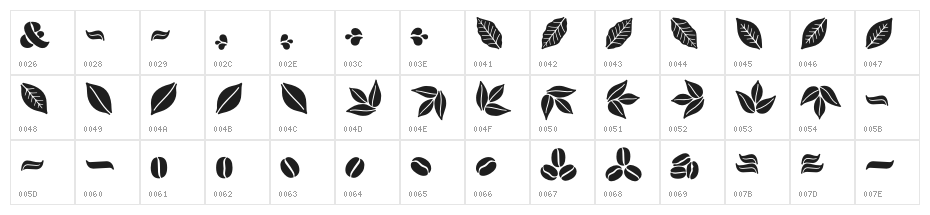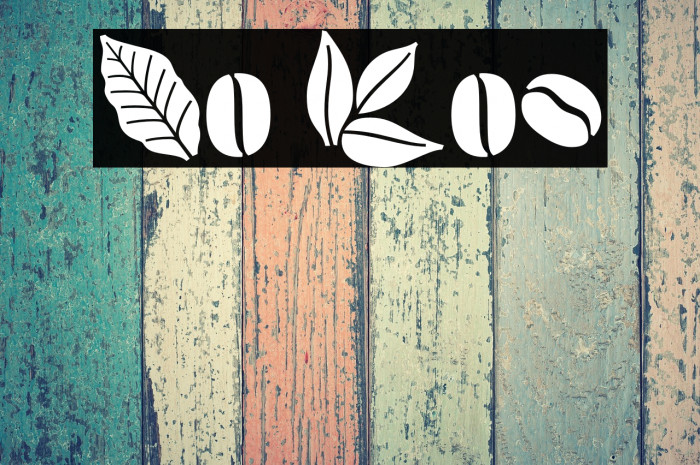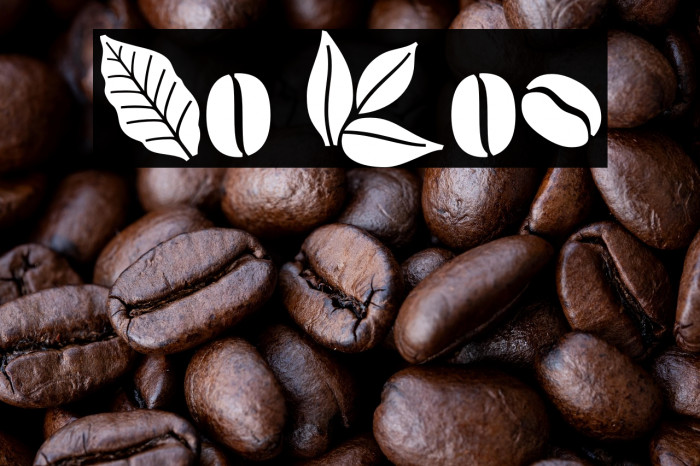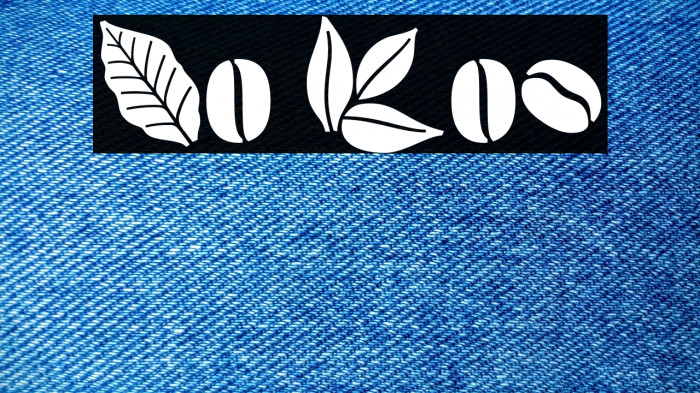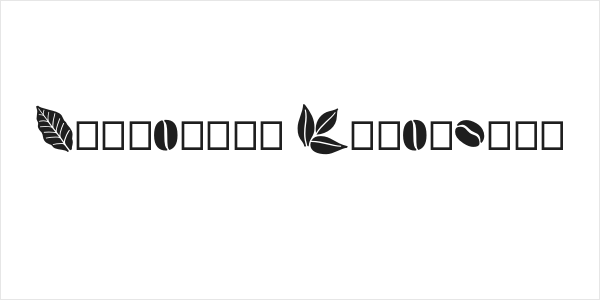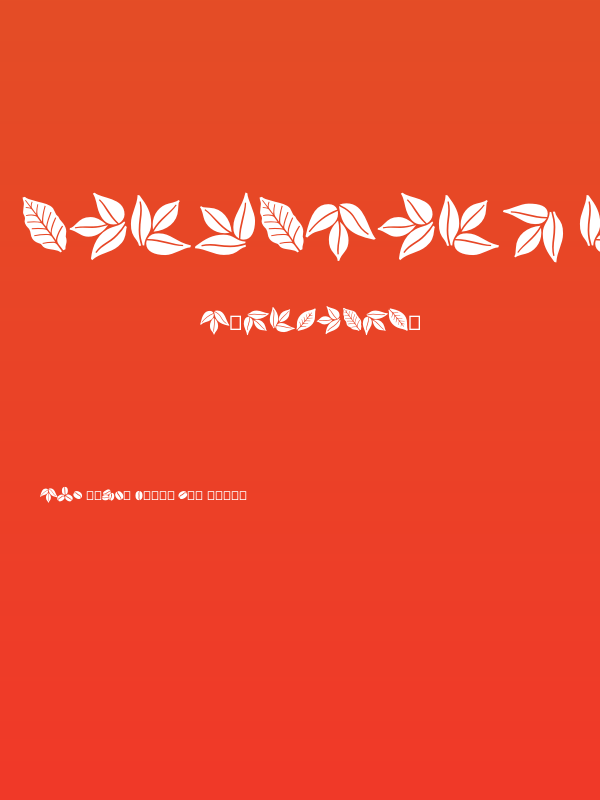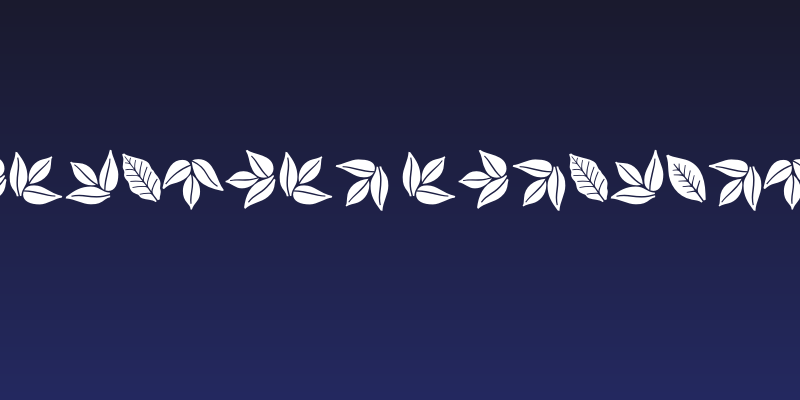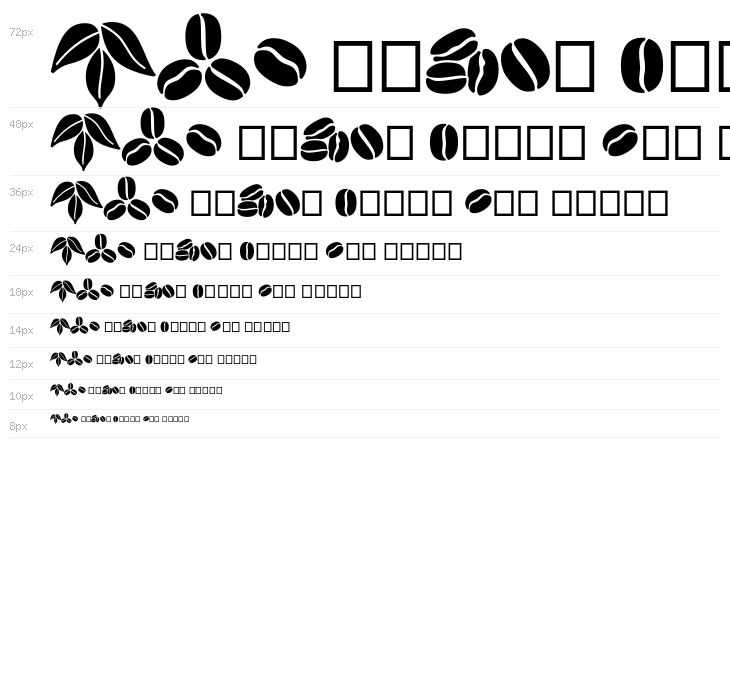
Aromatron Ornaments Font
Aromatron Ornaments Description
This set of ornaments features a variety of nature-inspired elements, including leaves and coffee beans, arranged in decorative patterns. The designs are bold and stylized, with a strong emphasis on organic shapes and symmetry. The elements are presented in a silhouette style, providing a clean and striking visual impact. These ornaments are ideal for adding a natural and artistic touch to various design projects, offering versatility in their application.
| Use Case | Logos, Packaging, Invitations |
| Proposed Projects | Ideal for eco-friendly branding, packaging design, invitations, and decorative borders in print and digital media. |